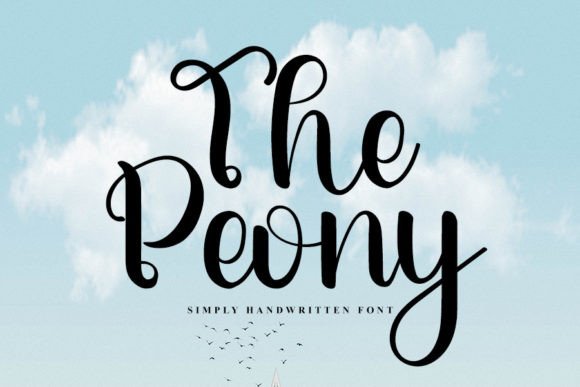
Journey into the world of elegance and sophistication with The Peony Font, a script font family crafted with meticulous attention to detail by Kongsi.Co. This font is not just a collection of letters; it's an artistic expression that breathes life into your designs, transforming them into captivating masterpieces.
The Peony Font's graceful strokes and delicate curves evoke a sense of timeless beauty, reminiscent of handwritten love letters from a bygone era. Its intricate details, like the subtle flourishes and elegant serifs, add a touch of refinement and charm to your creations, making them stand out from the ordinary.
With The Peony Font, you unlock a world of creative possibilities. Its versatility knows no bounds, effortlessly adapting to a myriad of projects, from heartfelt wedding invitations to eye-catching branding materials. Whether you're a seasoned designer or just starting your creative journey, this font will elevate your work to new heights.
Imagine your designs adorned with The Peony Font, captivating your audience with its timeless allure. Your wedding invitations will radiate romance and elegance, leaving a lasting impression on your guests. Your branding materials will exude professionalism and sophistication, attracting clients and building trust.
The Peony Font is more than just a font; it's an investment in the success of your creative endeavors. Its timeless style and meticulous craftsmanship ensure that your designs will remain relevant and captivating for years to come.
So, embrace the beauty of The Peony Font and let your creativity flourish. Discover the magic that awaits you as you transform your designs into breathtaking works of art. Indulge in the exquisite details, the graceful strokes, and the timeless elegance that only The Peony Font can provide.